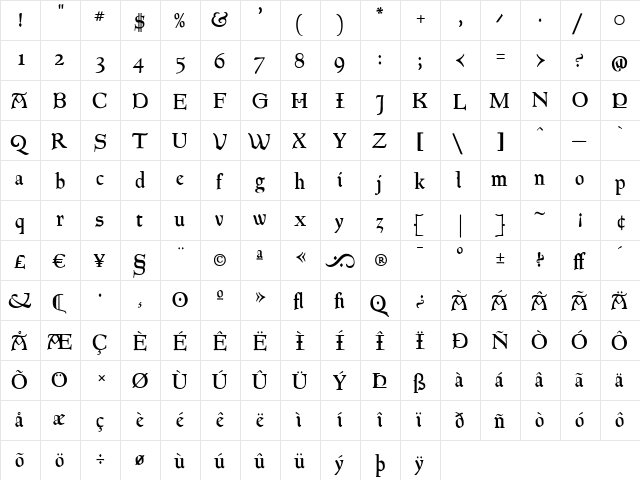
P22 Goudy Aries Aries
| Foundry | P22 type foundry |
| Designer | Fredric Goudy, Richard Kegler |
Design Context for P22 Goudy Aries Typeface
P22 Goudy Aries is a composed and adaptable typeface that performs quietly and consistently across a wide range of design contexts.